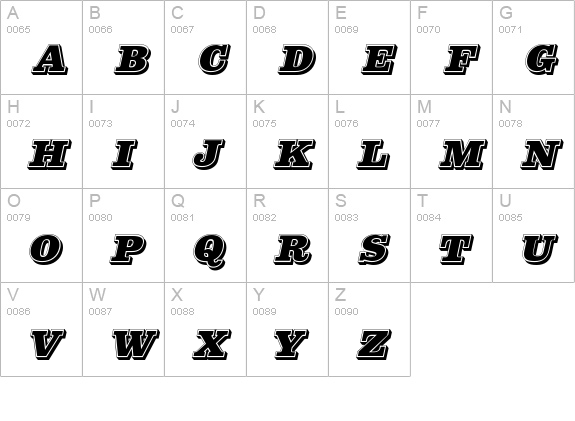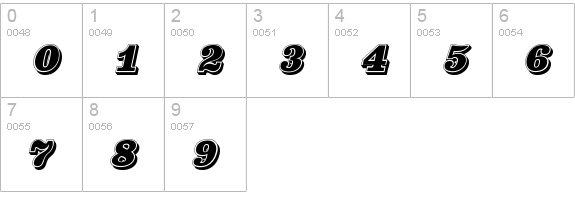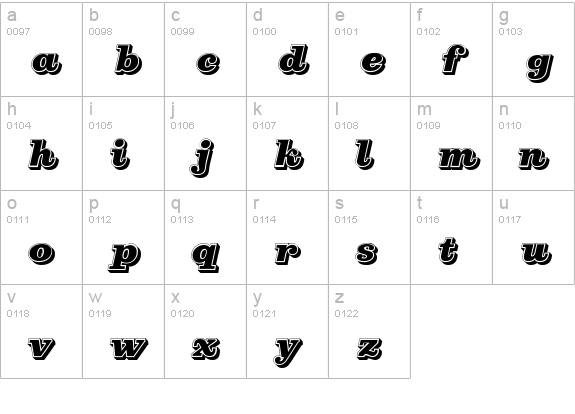
PFCentura ThreeSingle font combines modern elegance with a touch of sophistication, making it an ideal choice for various design projects. Its sleek and stylish design exudes a sense of professionalism and creativity, making it perfect for branding, advertising, and editorial use. The clean lines and sharp angles of this font give it a contemporary edge, while still maintaining a timeless appeal. What sets PFCentura ThreeSingle apart is not just its stunning visual aesthetic, but also the fact that it is available for free download at FontsMarket.com. This means that you can easily access this high-quality font without any cost, making it a valuable addition to your font collection. Whether you are working on a print design, web project, or any other creative endeavor, PFCentura ThreeSingle is sure to elevate your work with its unique charm and versatility. Download PFCentura ThreeSingle for free today at FontsMarket.com and unlock a world of creative possibilities with this exceptional font.